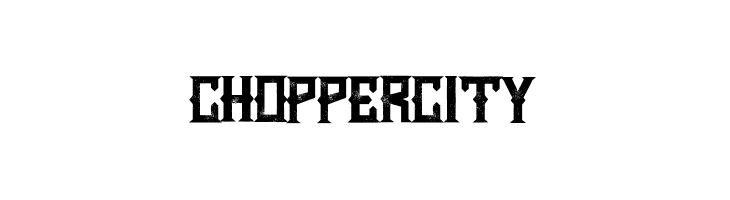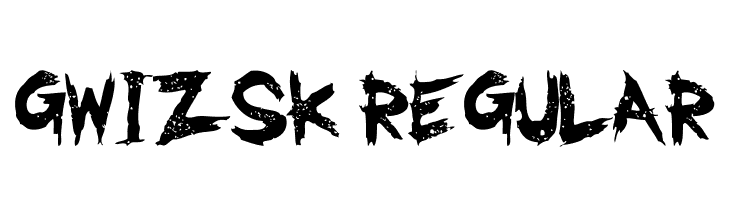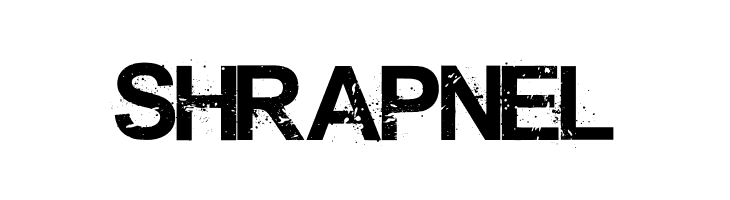
A bold, distressed font with a gritty, urban style.
A bold, distressed, industrial-style font with a rugged appearance.
A bold, distressed font with a grunge, vintage style.
A bold, distressed font with a grunge texture and rugged appearance.
A bold, spiked font with elongated, pointed characters for dramatic impact.
A bold, distressed font with a grunge aesthetic and jagged edges.
A bold, distressed font with a gritty, weathered texture.
A bold, grunge-style font with sharp, distressed characters.
A bold, rugged, hand-drawn font with a graffiti-like style.
A bold, distressed font with a grunge texture, perfect for edgy designs.